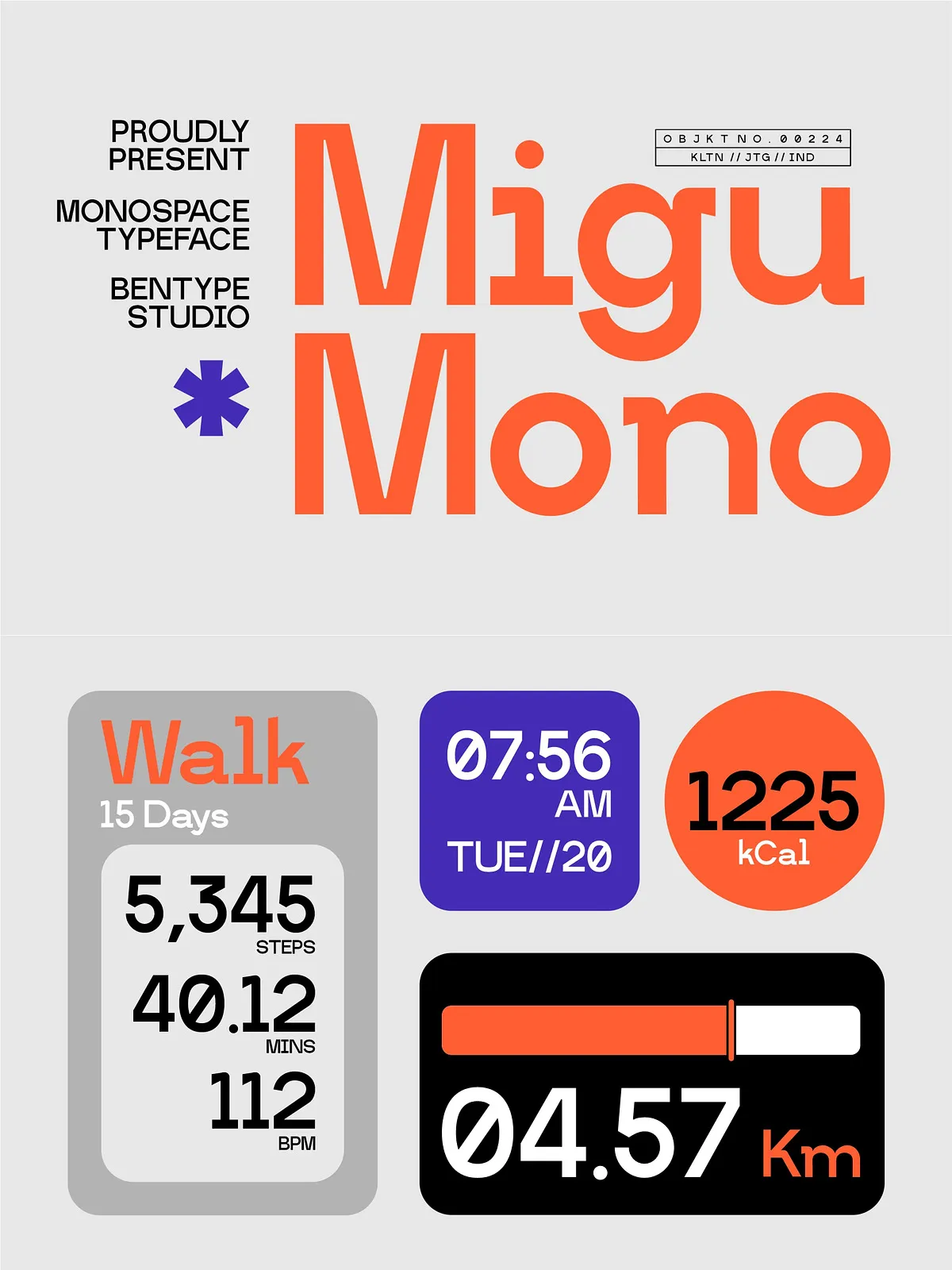
Step into the future of retro design with Migu Mono, a striking monospace display font that fuses nostalgic pixel charm with modern versatility. Engineered for impact, Migu Mono stands out in any visual landscape with its unique stem structures and deliberate joins—design elements that give each letter a personality and presence beyond the standard digital typeface.
Though rooted in the pixel-driven aesthetic of the past, Migu Mono transcends limitations. Its condensed width delivers maximum visual punch in tight spaces, making it ideal for high-impact displays, bold headlines, dynamic banners, and creative branding. Whether you’re designing retro video game UIs, music album visuals, tech startup identities, or coding tutorials, this font delivers instant recognition and stylistic authority.
Designed for Impact Across Every Application
Migu Mono isn’t just a font—it’s a creative catalyst. Its distinctive style ensures your message doesn’t just get read, it gets remembered.
• Perfect for Digital & Visual Campaigns
- Headlines & Banners: Command attention with a condensed layout that packs a punch. Its tight spacing and sharp edges make it ideal for digital ads, social media graphics, and event promotions.
- Retro & Gaming Design: Capture the aesthetic of classic arcade games, 8-bit platforms, or nostalgic web interfaces. Migu Mono is the go-to font for developers, artists, and content creators building pixel art worlds.
- Technical & Coding Visuals: Enhance documentation, code snippets, and developer tutorials with a font that reflects the precision and character of early computing styles.
- Branding & Merchandise: Create bold logos, T-shirts, stickers, or merchandise that scream modern nostalgia with a uniquely handcrafted edge.
• Complete Typography Support
Despite its bold, pixel-inspired design, Migu Mono provides all the essential typographic features needed for professional use:
- Full Uppercase & Lowercase Characters: Ensure consistent, clear messaging in any case-sensitive layout.
- Numbers & Standard Punctuation: Maintain readability and precision in dates, prices, captions, and technical text.
- Scalable Vector Quality: Maintain crisp clarity at any size—whether small on a UI element or large on a billboard.
Designed with workflow efficiency in mind, Migu Mono fits seamlessly into your existing process.
- Developer-Friendly: Ideal for developers seeking a font that’s both visually distinctive and functionally robust in static and dynamic web environments.
- Print-Ready Quality: Delivers sharp, clean lines in high-resolution prints, from business cards to posters, without pixelation or blurriness.
Bring Your Vision to Life with Migu Mono
Stop chasing fonts that only partially capture your idea. Migu Mono is more than a choice—it’s a statement. It’s for creators who value visual distinction, playful nostalgia, and technical precision in equal measure.
Whether you’re working on a video game project, designing a retro-themed website, building a tech brand, or illustrating a pixel art comic, Migu Mono gives your work the edge it needs. With its unique stems, bold joins, and condensed power, it doesn’t just fill space—it owns it.